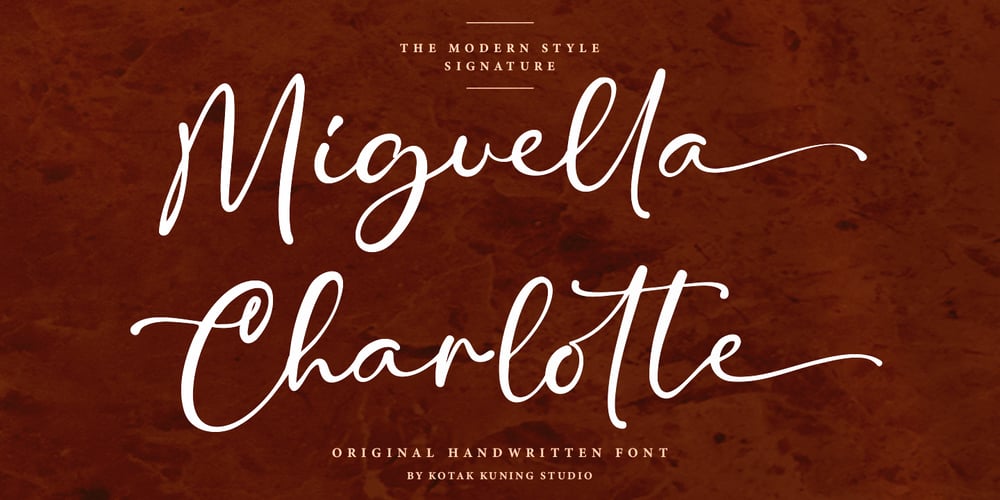
Miguella Charlotte
Miguella Charlotte font
Miguella Charlotte Font Family was designed by Arif Dwi and published by Kotak Kuning Studio. Miguella Charlotte contains 1 styles and family package options. Miguella Charlotte is a beautiful handwritten script font. Perfect for making elegant stylish statements – or adding a touch of class to your designs. This script has a multitude of natural-looking ligatures in its OpenType features – making the font look as close to natural handwriting as possible.Miguella Charlotte is perfect for many different projects such as logos & branding, invitation, stationery, wedding designs, social media posts, advertisements, product packaging, product designs, label, photography, watermark, special events, or anything.I highly recommend using a program that supports OpenType features and Glyphs panels such as Adobe Illustrator, Adobe Photoshop CC, Adobe InDesign, or CorelDraw, so you can see and access all Glyph variations. Thank you.